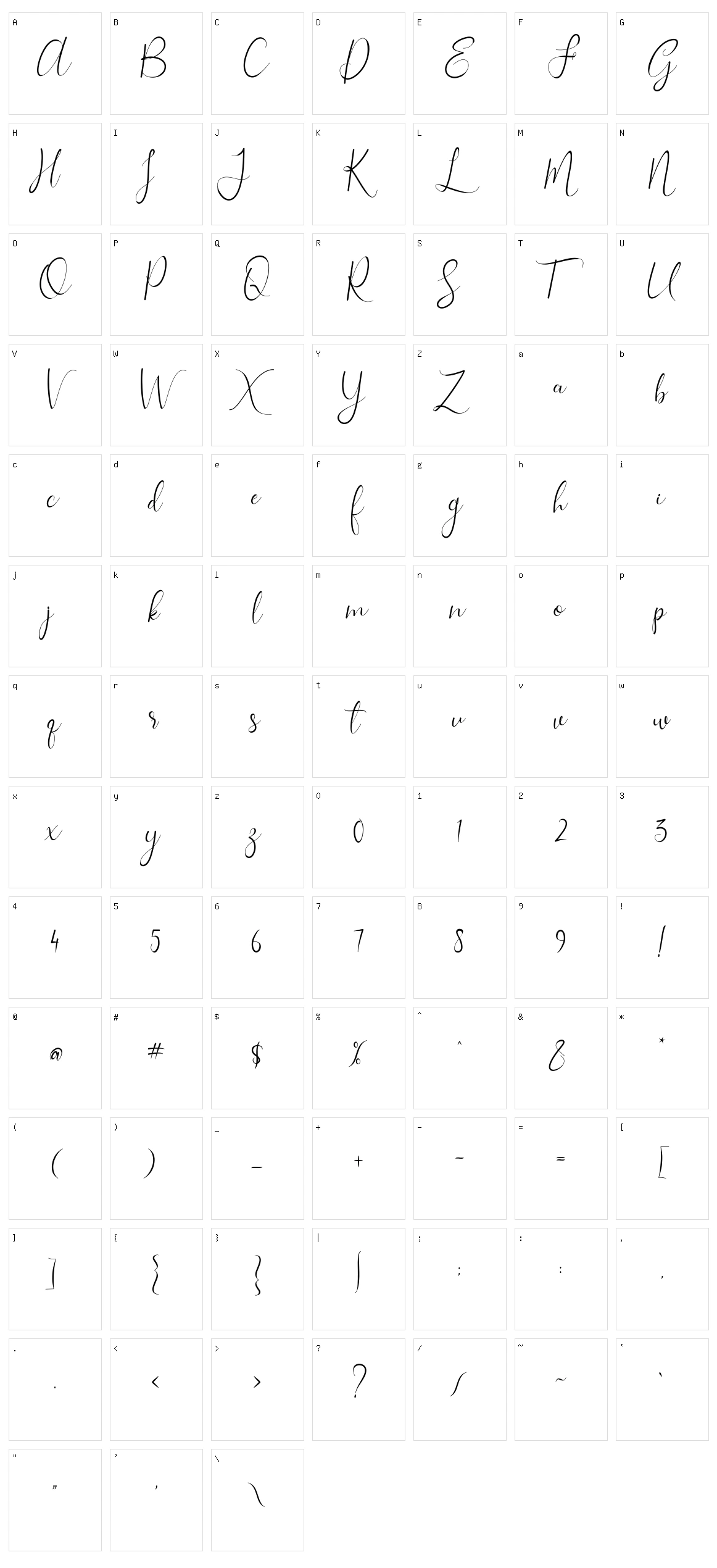
The free font Isabela is carefully designed by Gilar Studio, showcasing a thoughtful balance of creativity and usability and falls under the Script font style. When you download the ZIP file, it contains only 26.51 KB of font files, making it lightweight and quick to download. Please review the license details below to understand permitted usage and distribution rights. If license information is not available, we recommend using this font for personal projects only or contacting the author directly for commercial usage permissions.